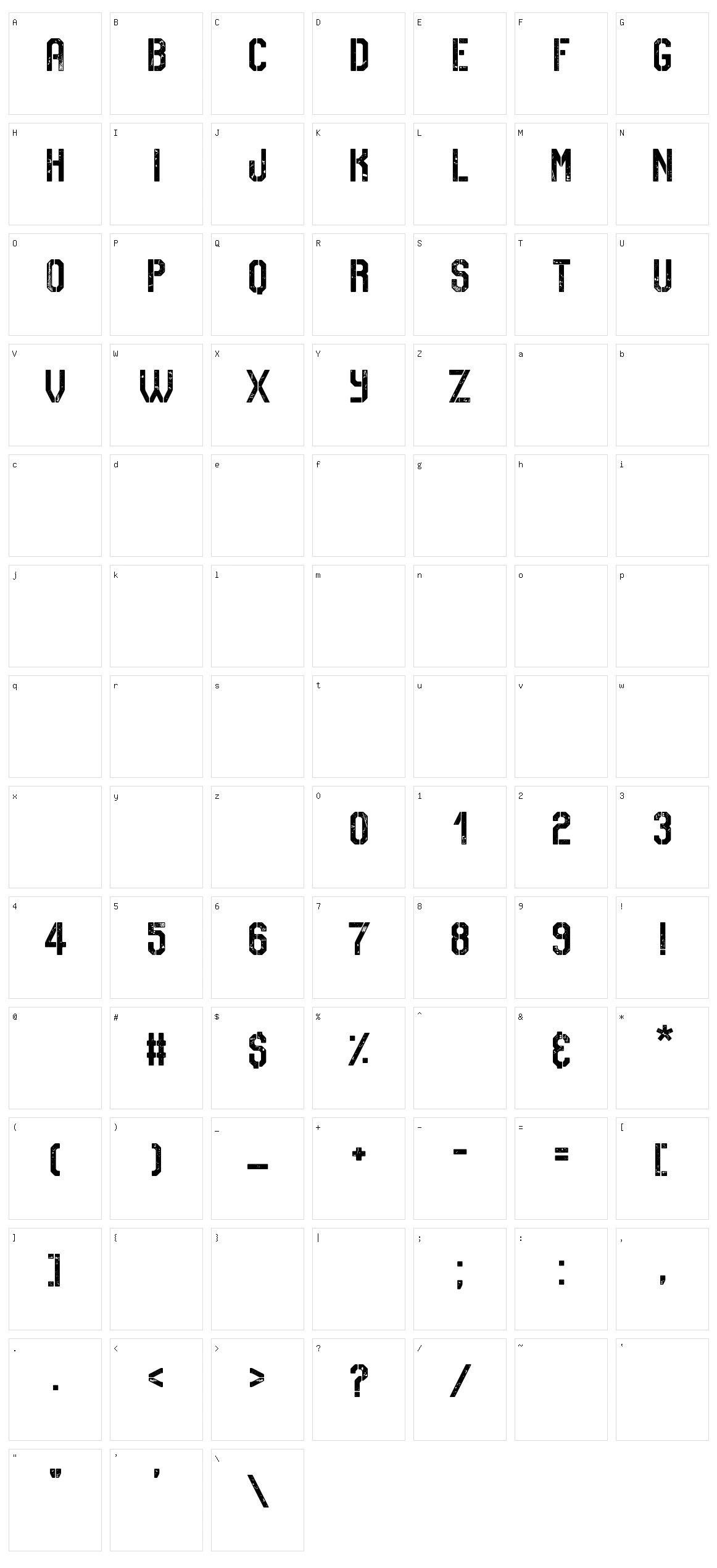
The free font No Safety Zone is carefully designed by imagex, showcasing a thoughtful balance of creativity and usability and falls under the Stencil font style. When you download the ZIP file, it contains only 41.93 KB of font files, making it lightweight and quick to download. Please review the license details below to understand permitted usage and distribution rights. If license information is not available, we recommend using this font for personal projects only or contacting the author directly for commercial usage permissions.